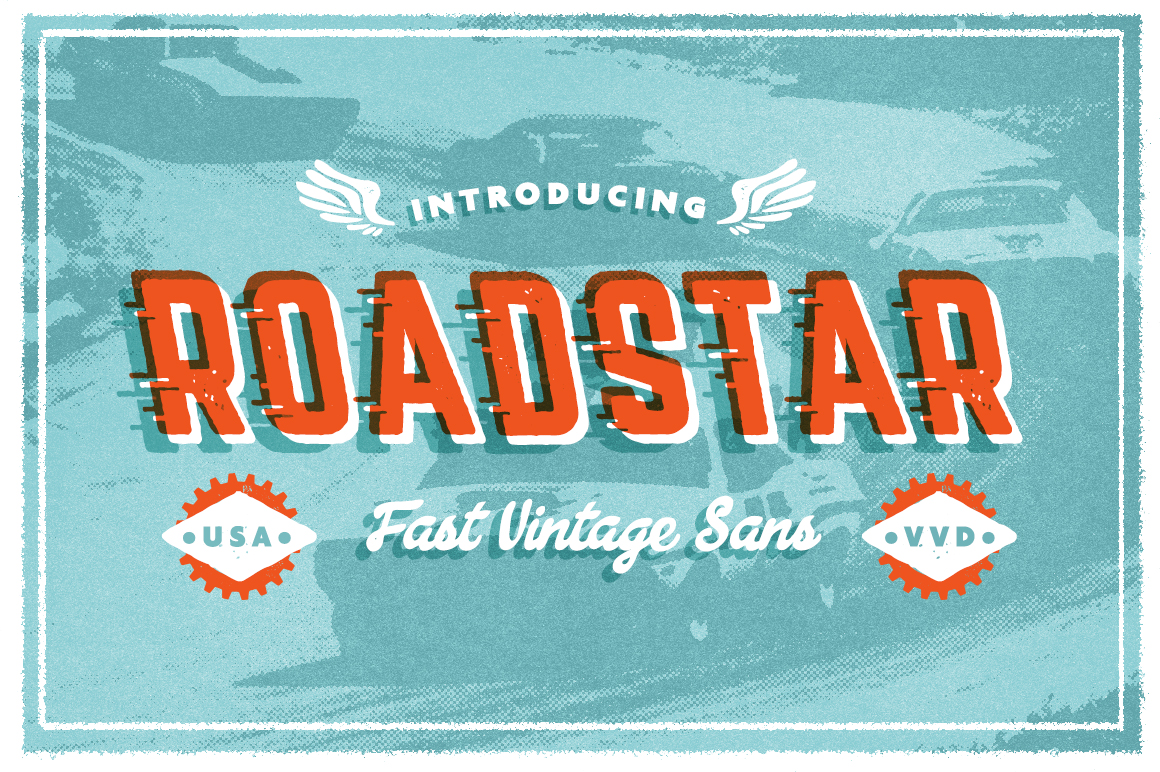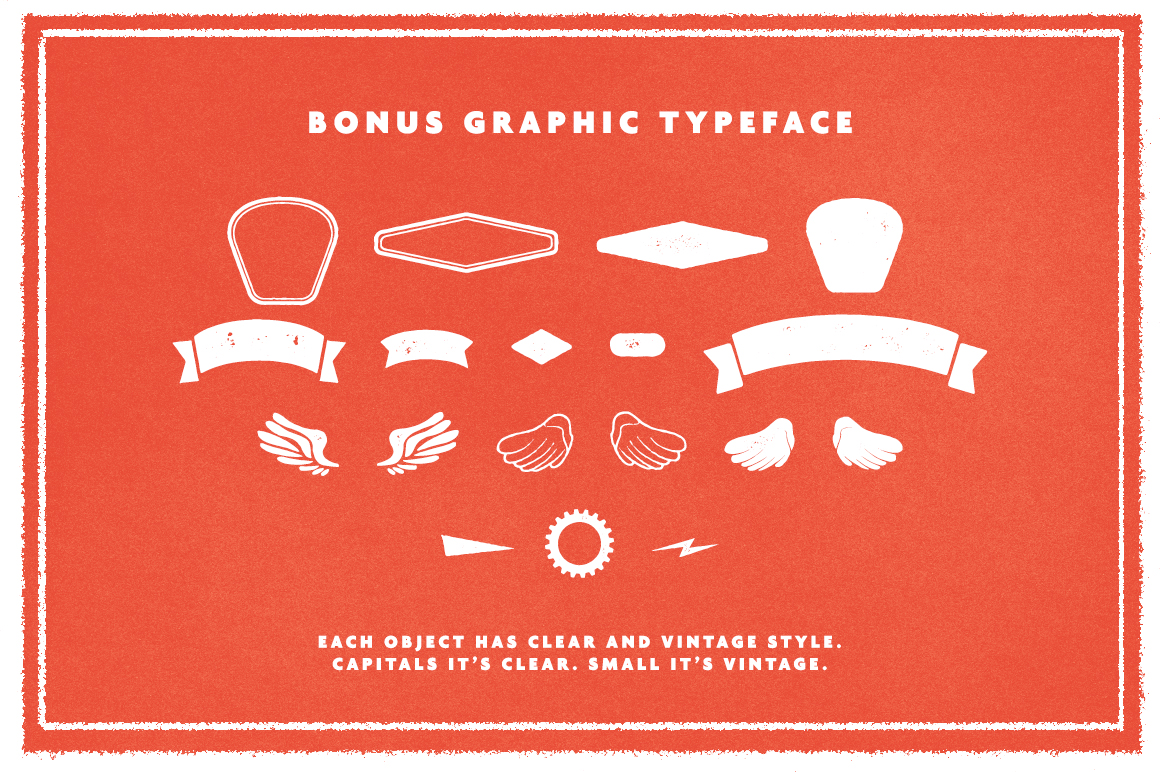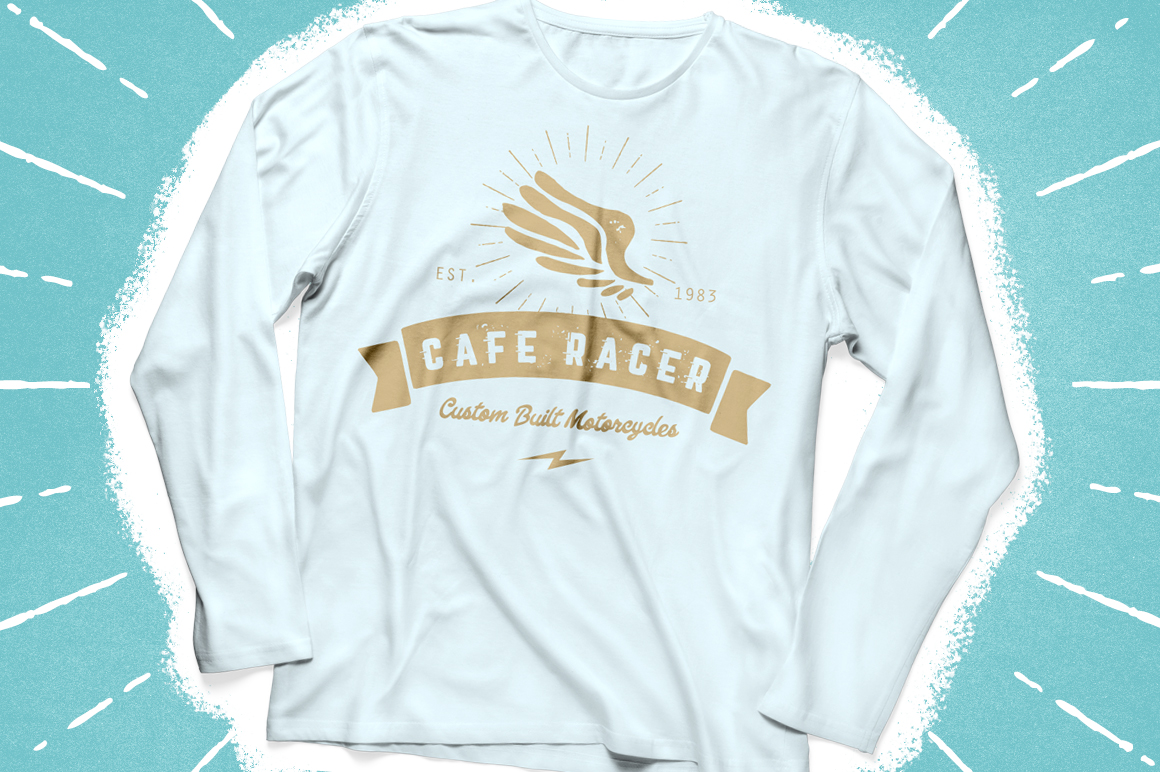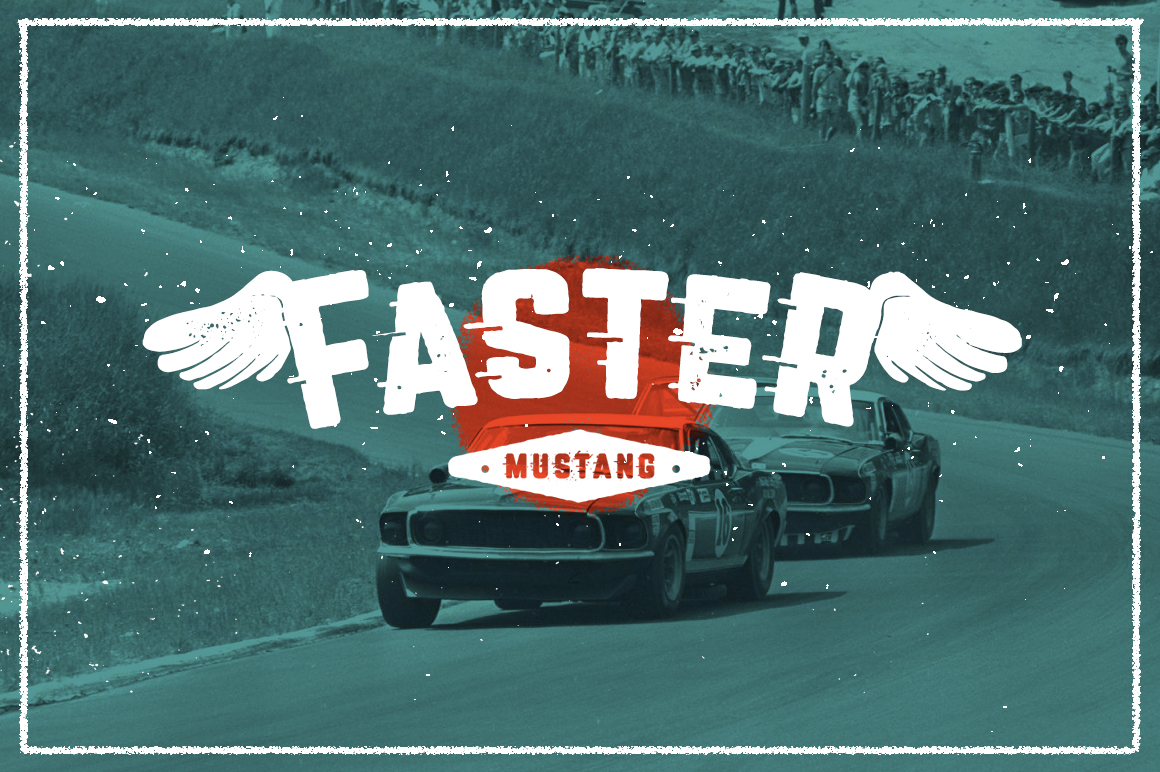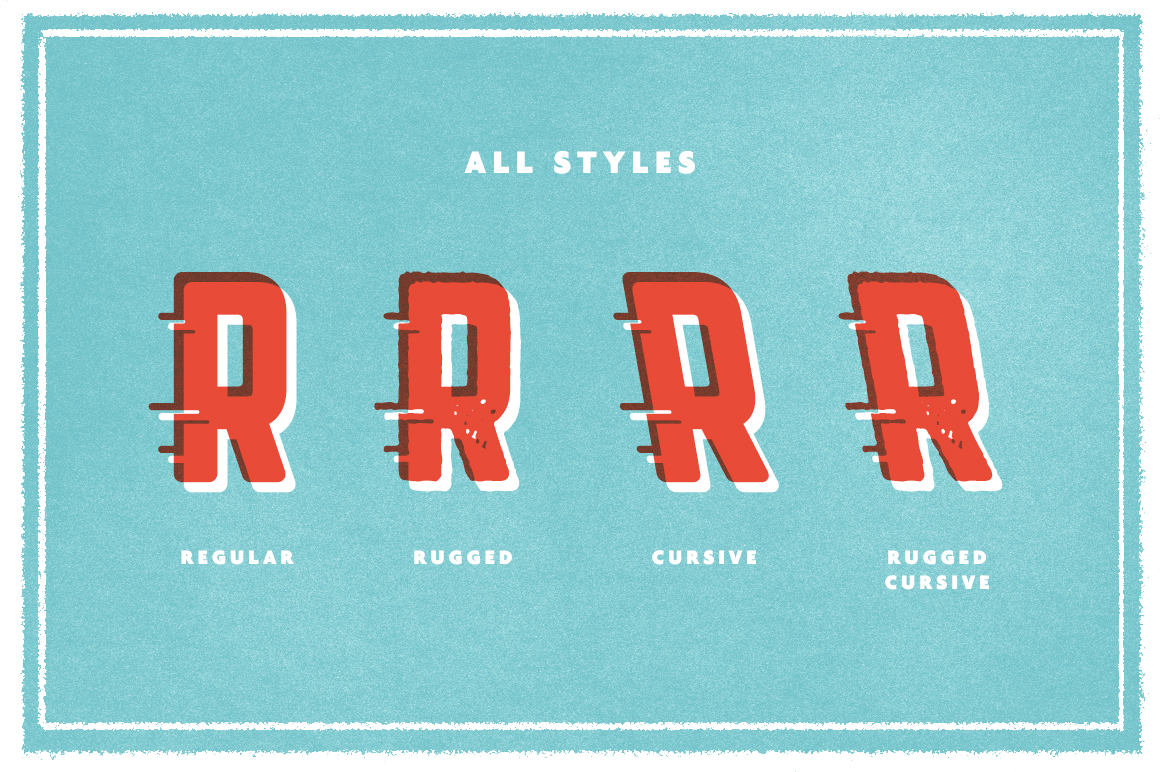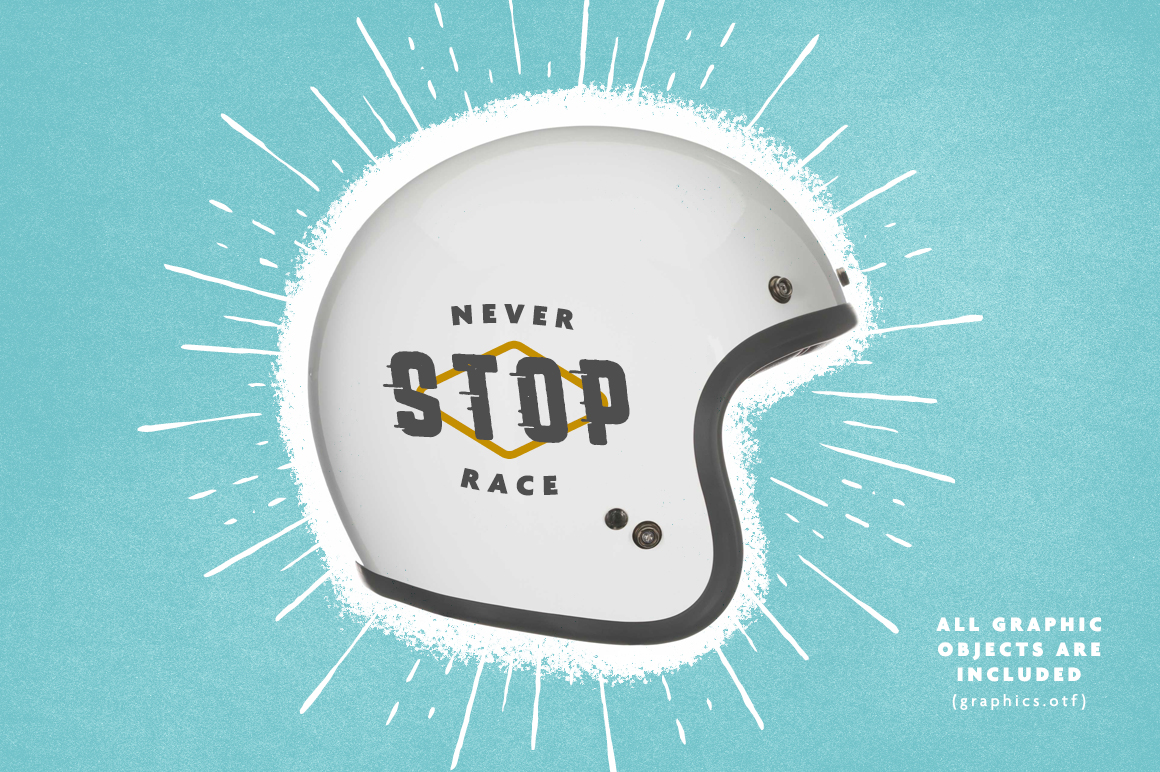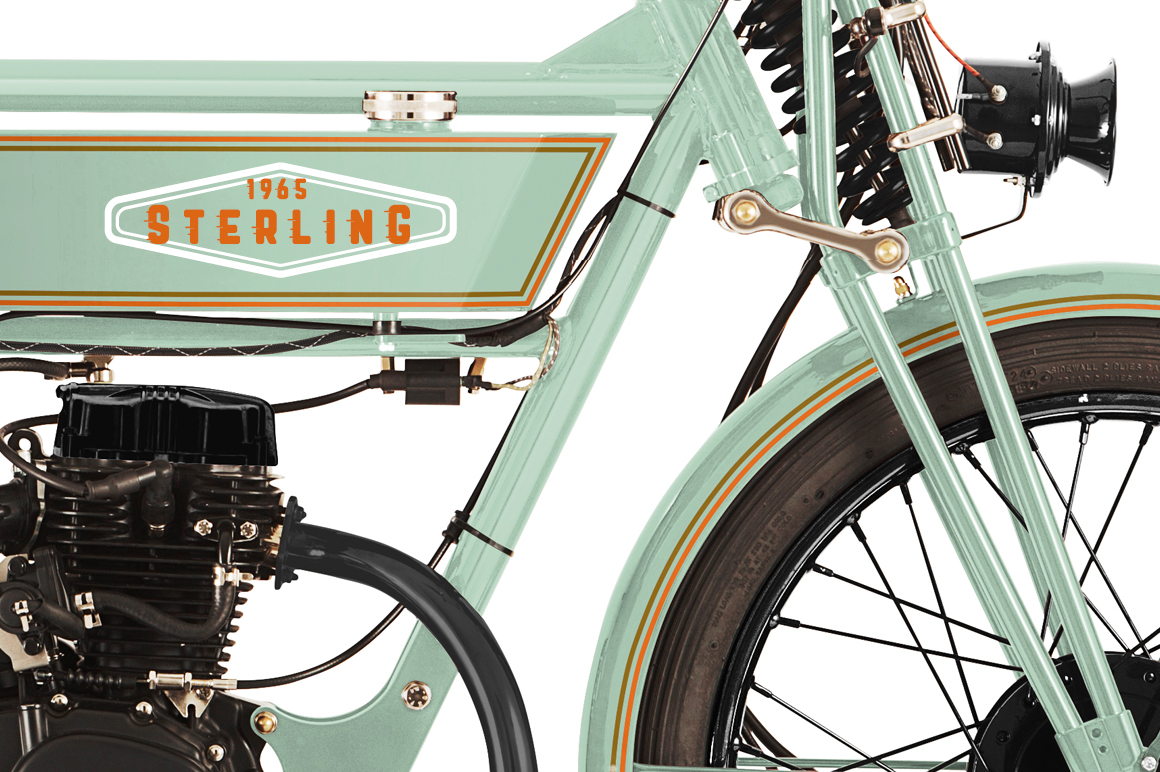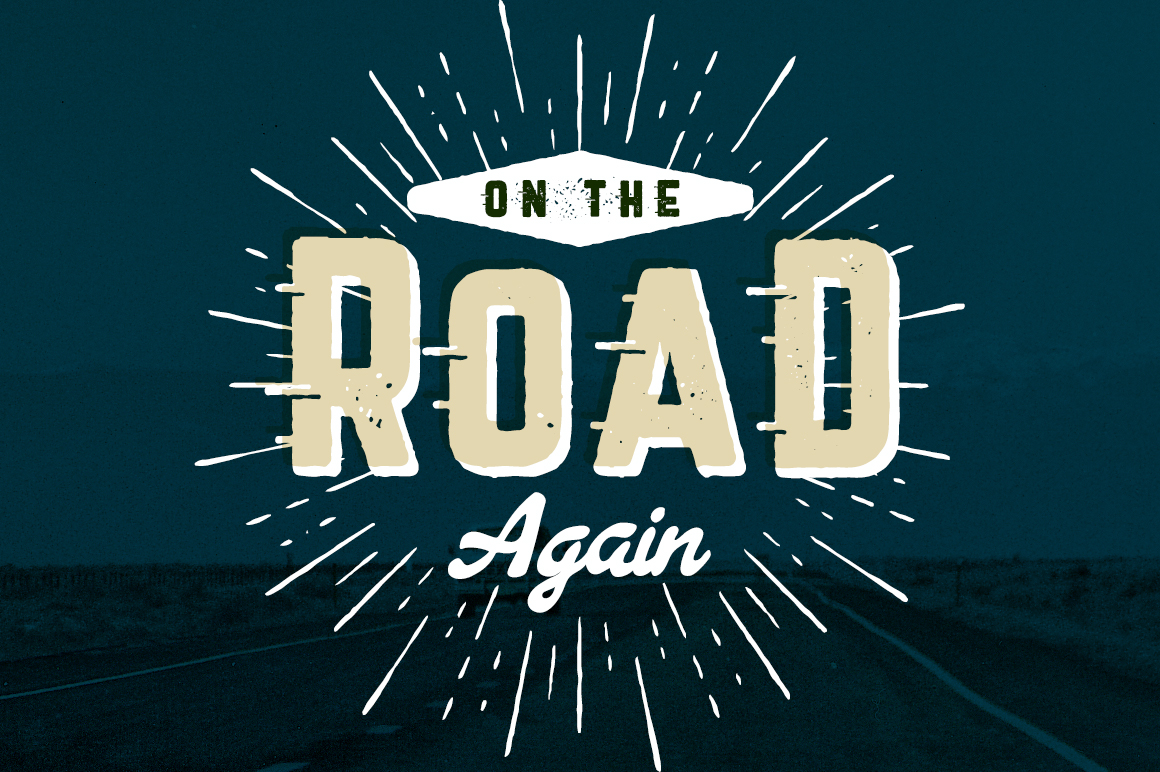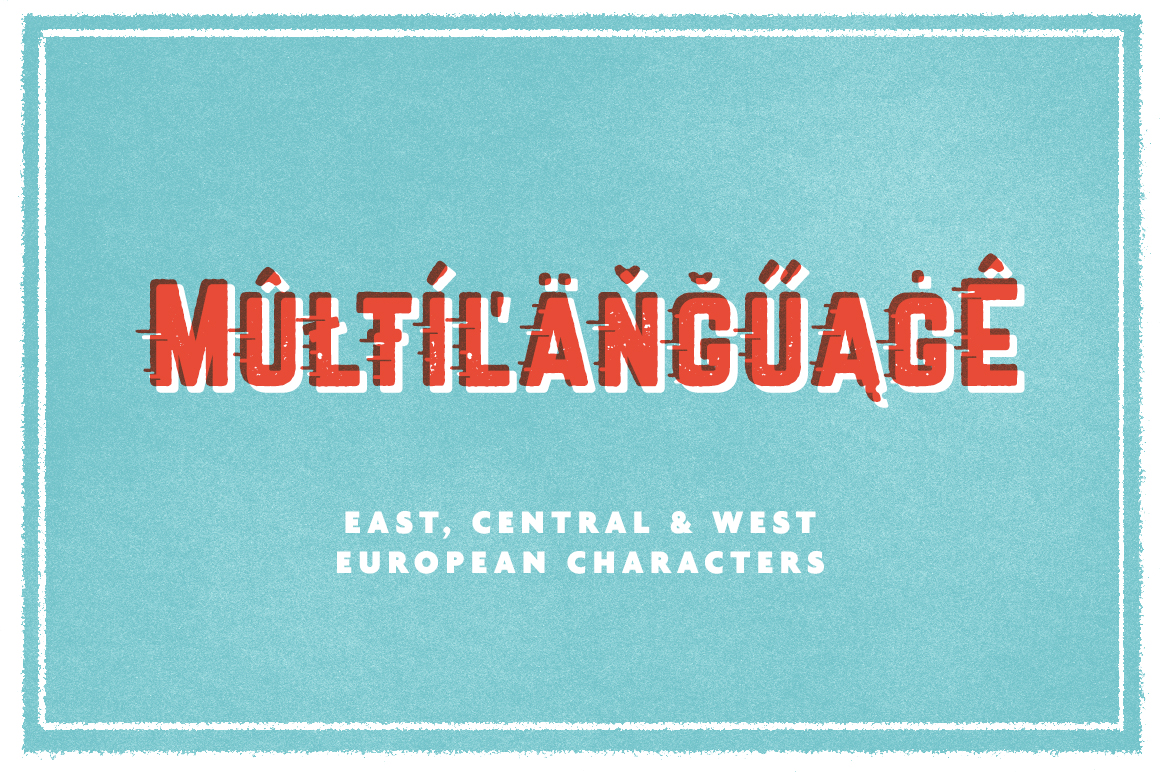
Roadstar
Roadstar is a fast-paced display font family inspired by classic films, vintage posters, and the bold spirit of motorcycle and race car culture. Reflects the energy of legends like Steve McQueen and Marlon Brando, and the heritage of Triumph, Indian, Harley, Chevrolet, Ford, and Plymouth. Designed for eye-catching prints, posters, mugs, and all kinds of graphic design. Includes Clear and Rough styles, with Regular and Italic options for flexible use. Comes with graphic elements to help create powerful vintage compositions. Perfect for projects fueled by speed, grit, and nostalgia.